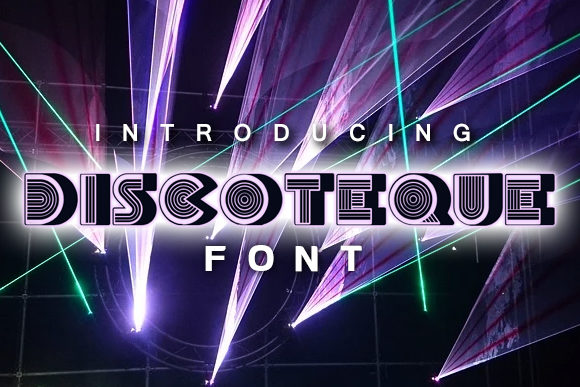
Unleash the dazzling allure of your creative vision with Discoteque Font, a typographic masterpiece that ignites the imagination and captivates the senses. This bold and authentic display font is a symphony of abstract shapes, each stroke a celebration of eclectic brilliance.
Embark on a visual odyssey as Discoteque Font transforms your words into captivating works of art. Its unique and eye-catching aesthetic adds an irresistible allure to logos, posters, and social media designs. Imagine the impact of headlines that dance off the page, each letter a vibrant expression of individuality.
With Discoteque Font, ordinary text becomes an extraordinary spectacle. It's the perfect font for expressing your innermost thoughts and emotions, adding a personal touch to invitations, greeting cards, and heartfelt messages. Let the world witness the beauty of your words, amplified by the stunning artistry of Discoteque Font.
Unlock the gateway to limitless creativity as you explore the endless possibilities of Discoteque Font. Design captivating album covers that echo the rhythm of your music, creating a visual symphony that resonates with your audience. Craft stunning movie posters that transport viewers to extraordinary worlds, where every title card tells a captivating story.
Join the ranks of creative visionaries who have embraced Discoteque Font as their weapon of choice. Let your imagination run wild as you craft unique and memorable designs that leave an indelible mark on the hearts and minds of your audience. Discoteque Font is more than just a font; it's an artistic revolution waiting to be unleashed.